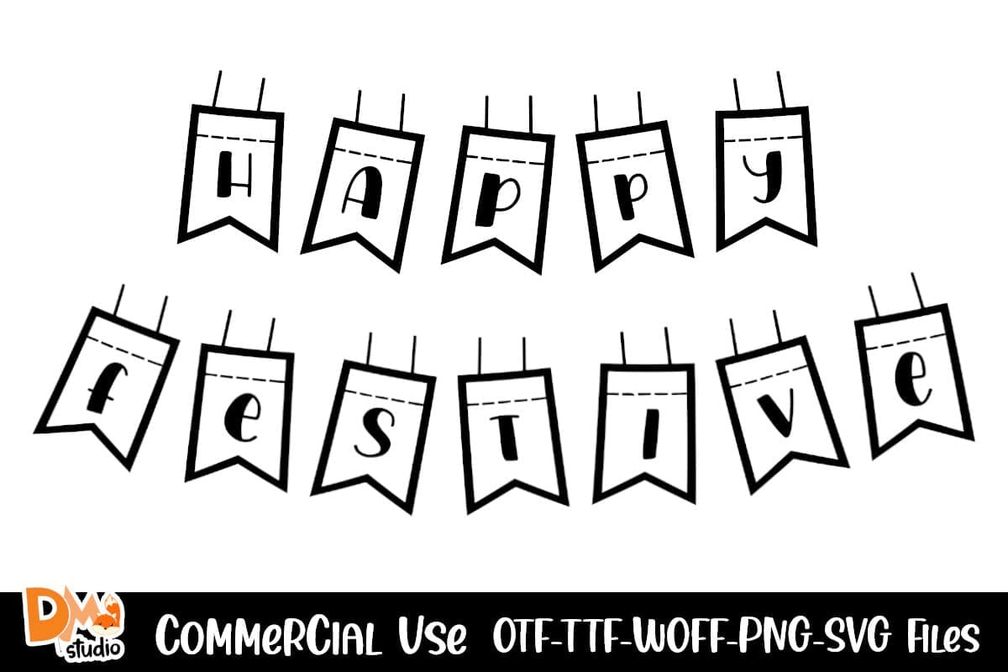
Happy Festive Font
The Happy Festive Banner Font is a cheerful and celebratory typeface designed to add a festive touch to your designs. With its playful banner-style letterforms, this font is perfect for holiday cards, party invitations, banners, and other joyful occasions.
1. Festive and Playful Style: The Happy Festive Font is crafted to bring a sense of celebration and joy to your designs. Its playful banner-style letters exude a festive vibe, making it ideal for creating cheerful and inviting visuals.
2. Banner-Style Letterforms: Each letter is uniquely designed with a banner-like element, adding a decorative and celebratory feel to your text. The font’s design is perfect for creating eye-catching headlines and festive messages.
3. Versatile Application: This font is versatile and suitable for a variety of festive design projects. Use it in holiday cards, party invitations, social media graphics, banners, and any other designs where you want to convey a sense of happiness and celebration.
5. Uppercase and Lowercase Letters: The font includes both uppercase and lowercase letters, allowing for creative flexibility in your designs. Combine cases to create visually appealing and balanced typography.
6. Punctuation and Symbols: In addition to the alphabet, the font includes a set of punctuation marks, numerals, and common symbols. This ensures consistency and ease of use when incorporating the font into your design projects.
Elevate the festive spirit of your designs with the Happy Festive Banner Font. Let its playful banner-style letters spread joy and celebration in your holiday-themed projects, creating a warm and inviting atmosphere for your audience.